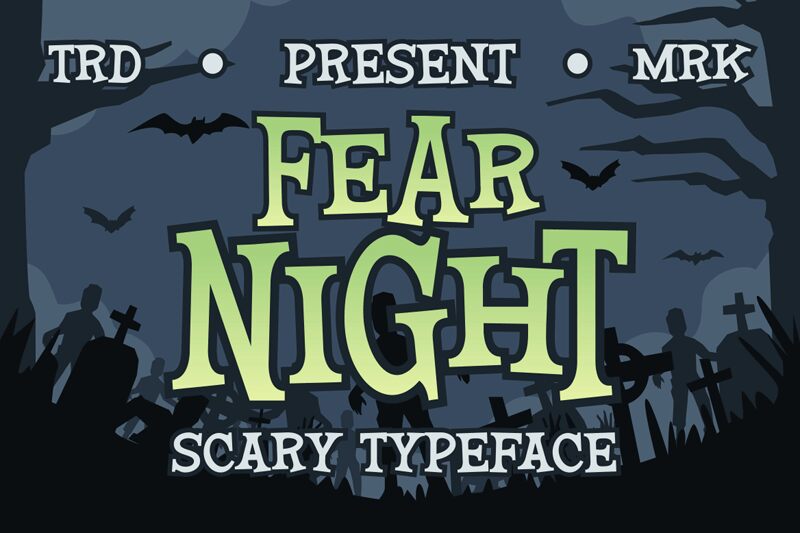
Fear Night font family by Gilang Ternadho is a free typeface. Fear Night contains two fonts with horror-themed details that will dramatically engage your design in no time! The holidays typeface comes naturally with scary features well-positioned in a visually striking and attention-grabbing way. Even though this is an entertainment-oriented font, it exhibits a bold presence of vintage inspiration with a theatrical finish.
So, let Fear Night be your go-to font for scary Halloween posters, invitations for costume parties, typography on prank products, and Halloween-related comic books. Other possible and successful uses include t-shirts, notebooks, greeting cards, stickers, and movie bills.